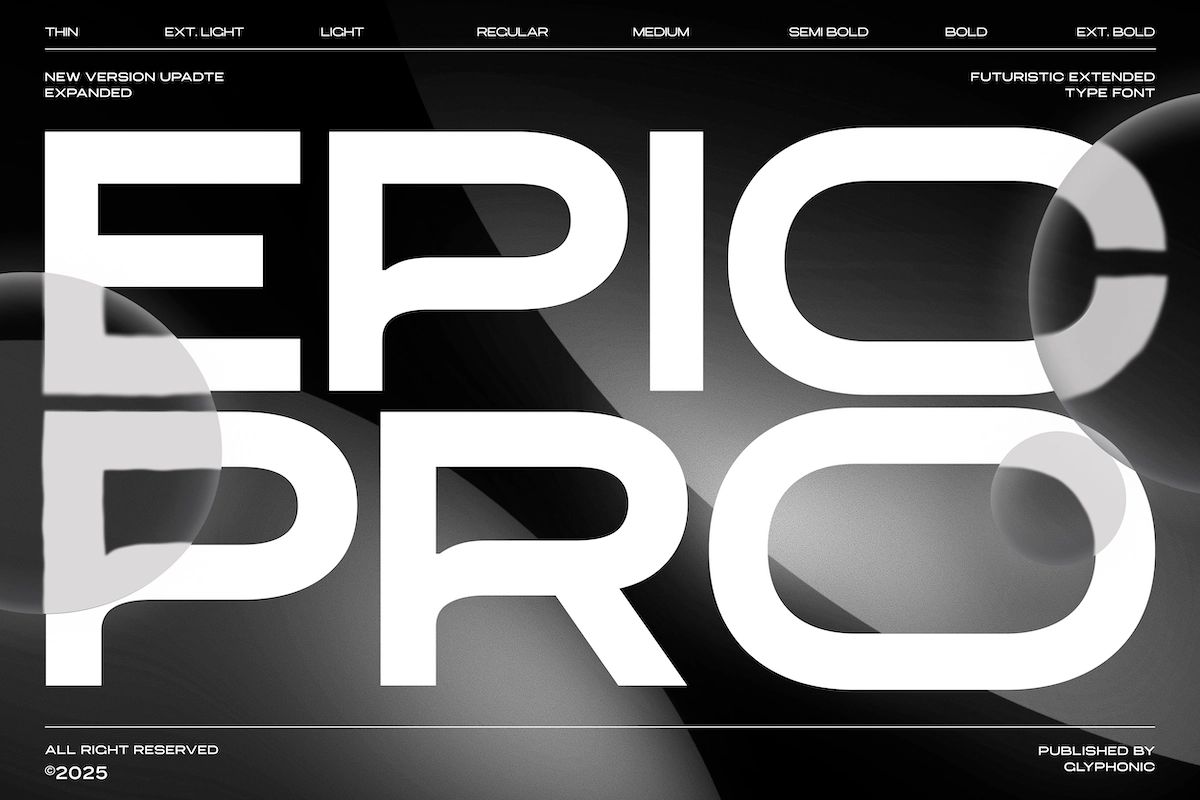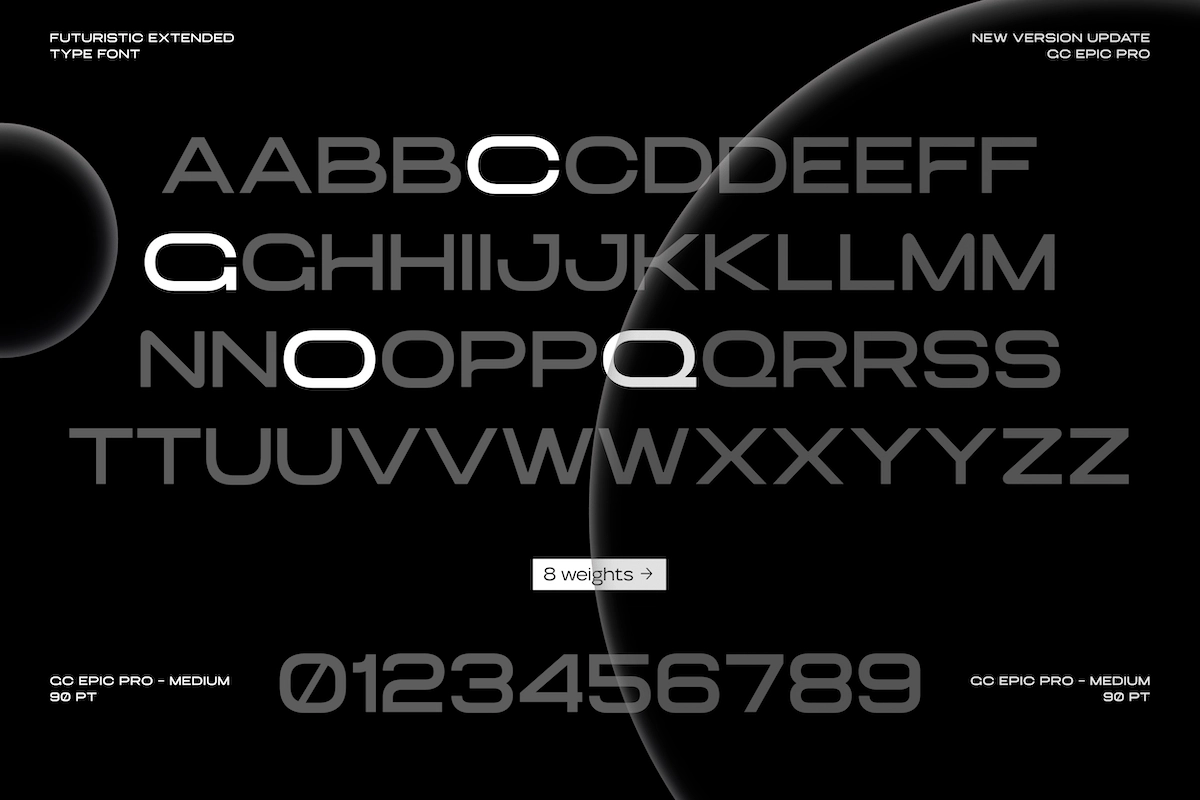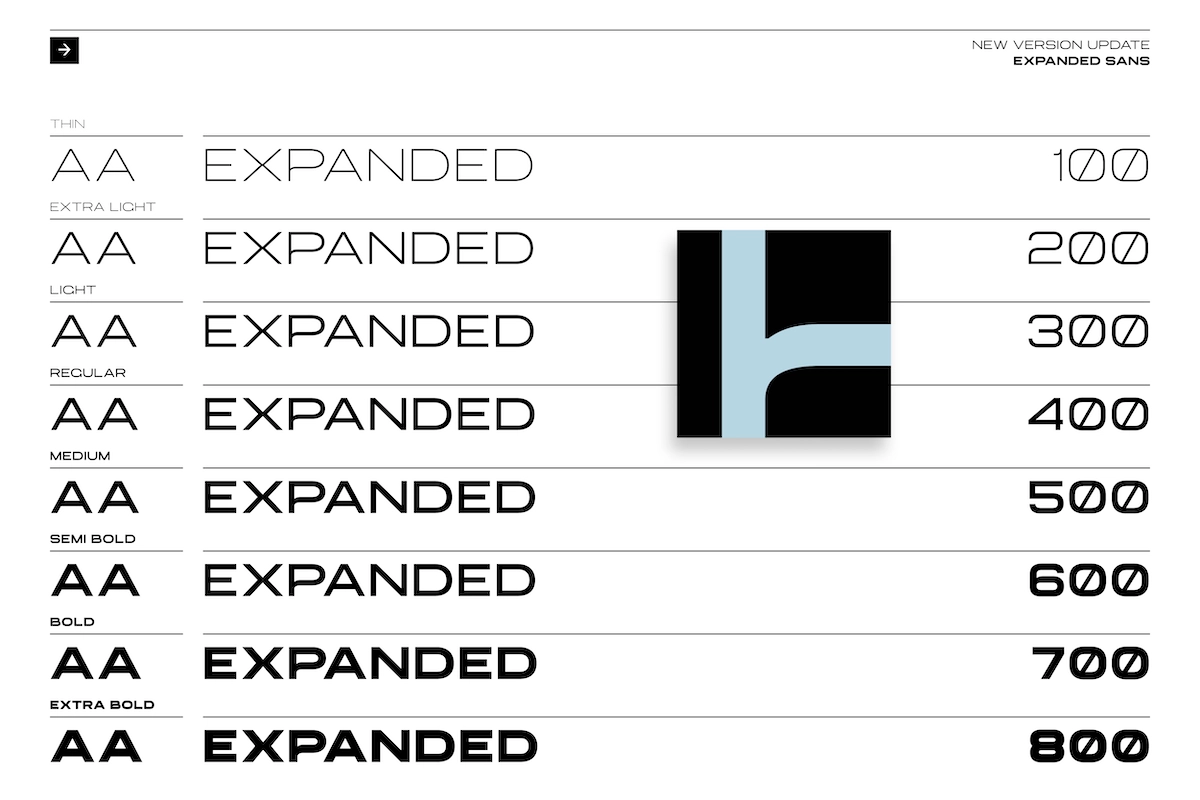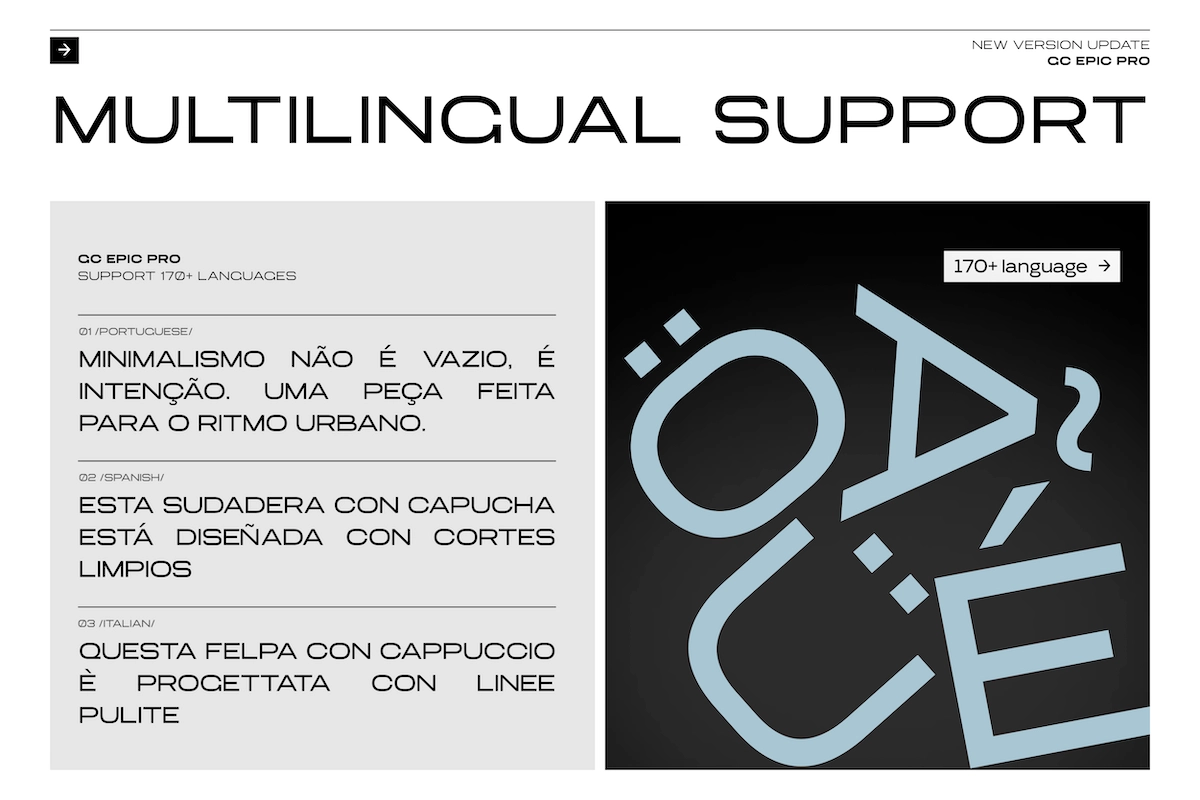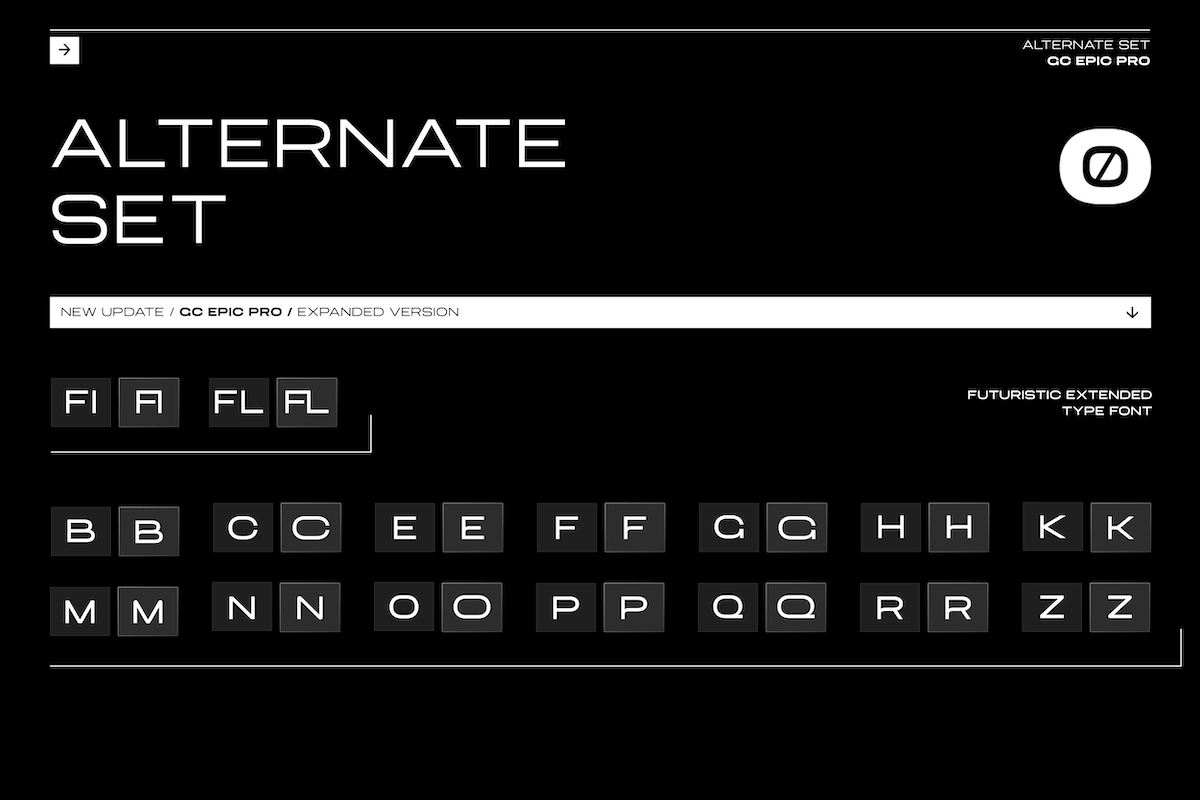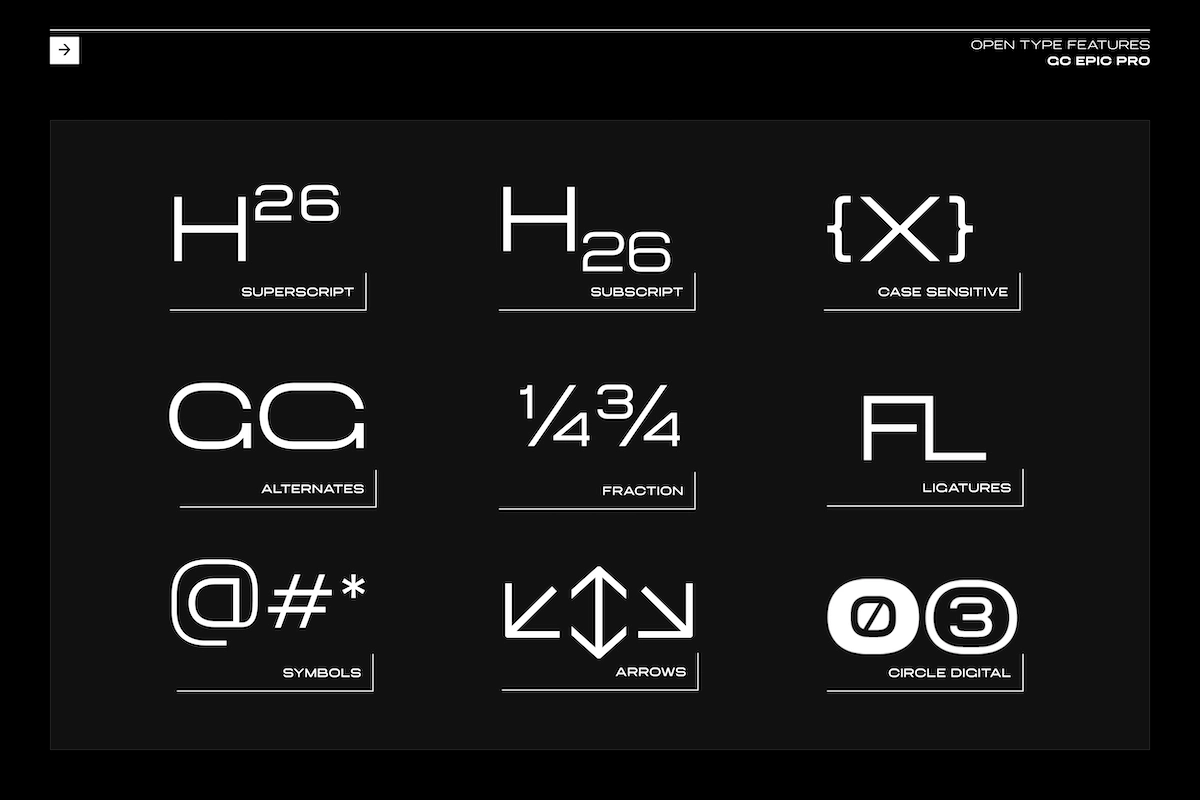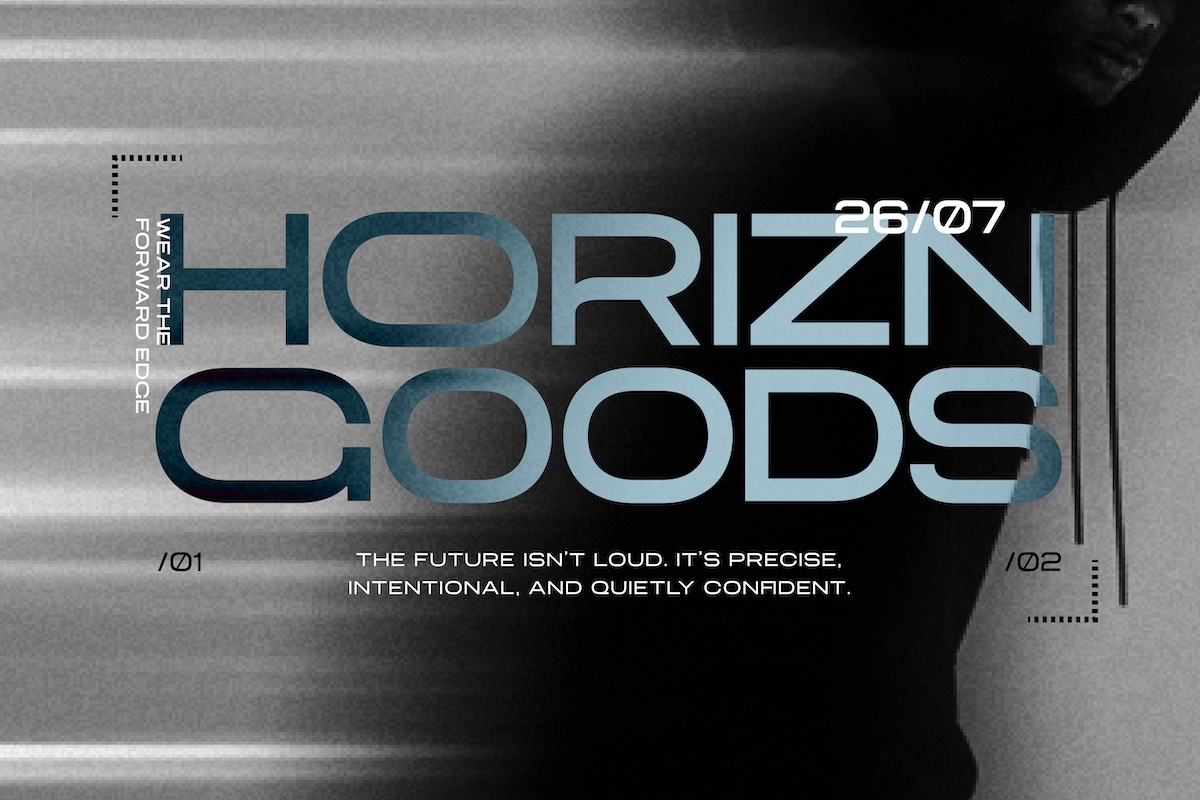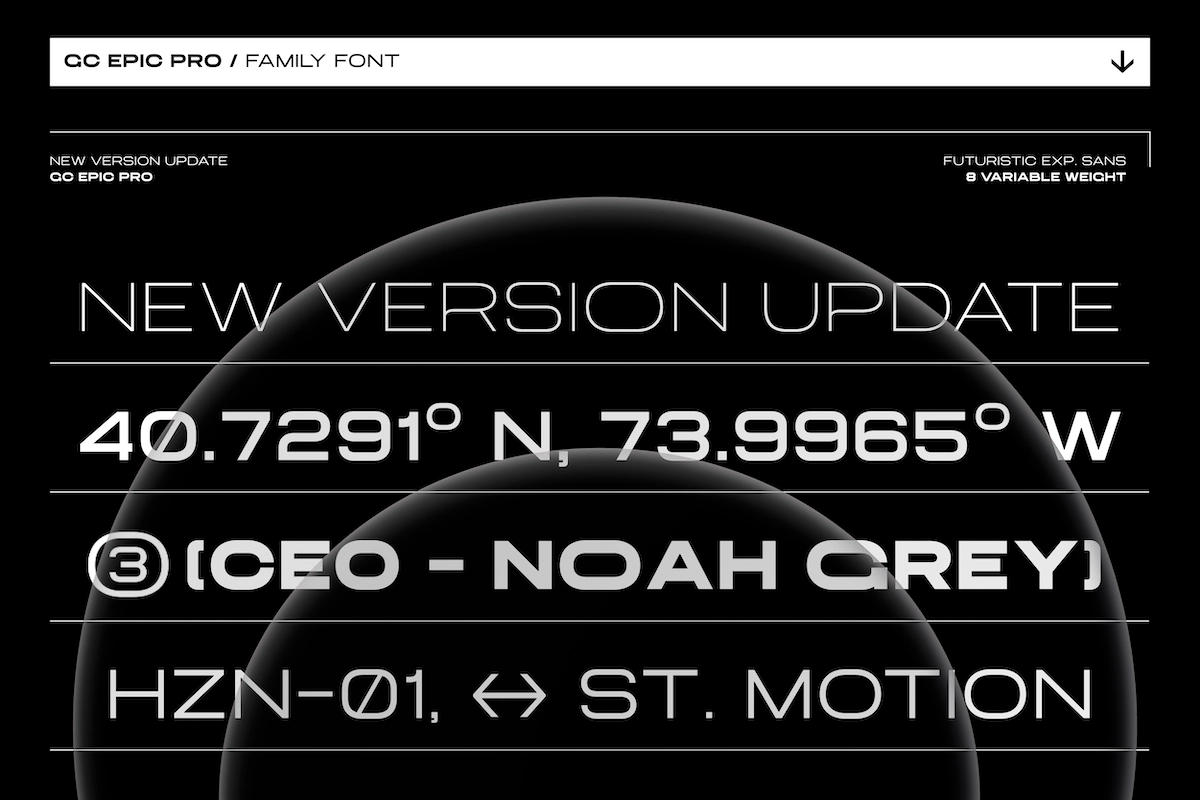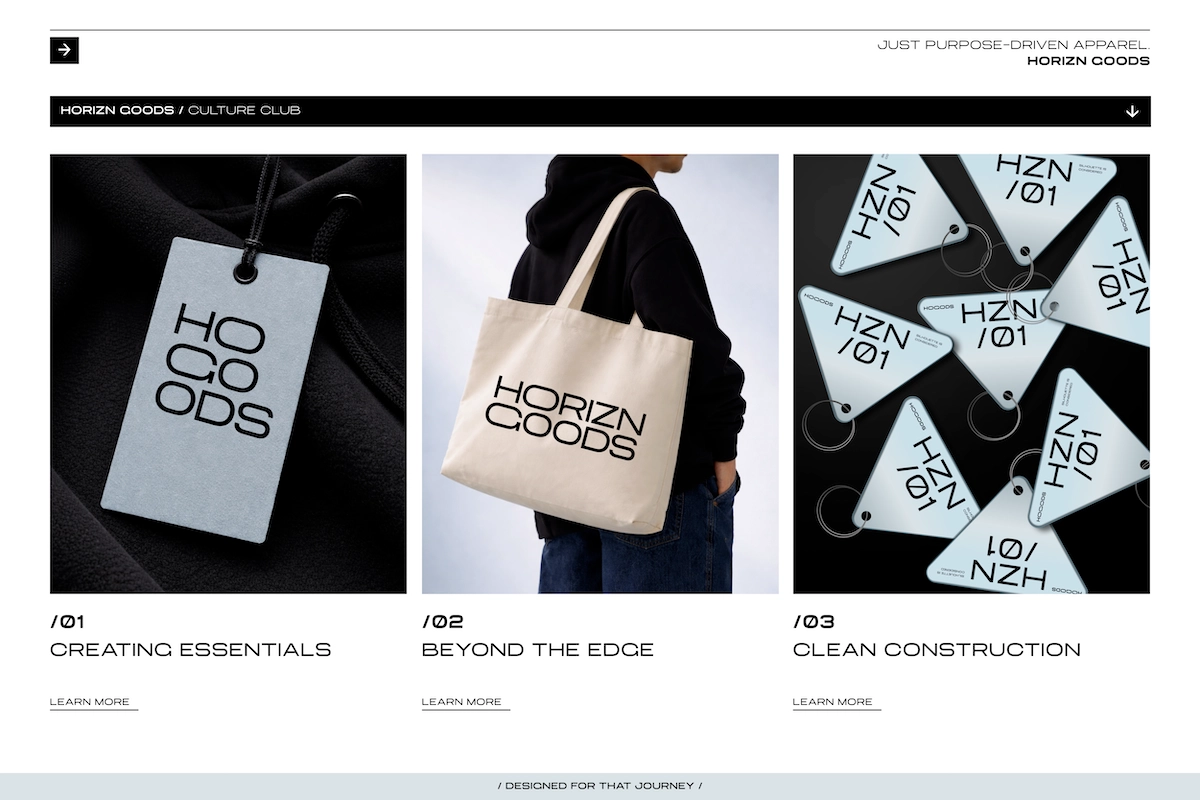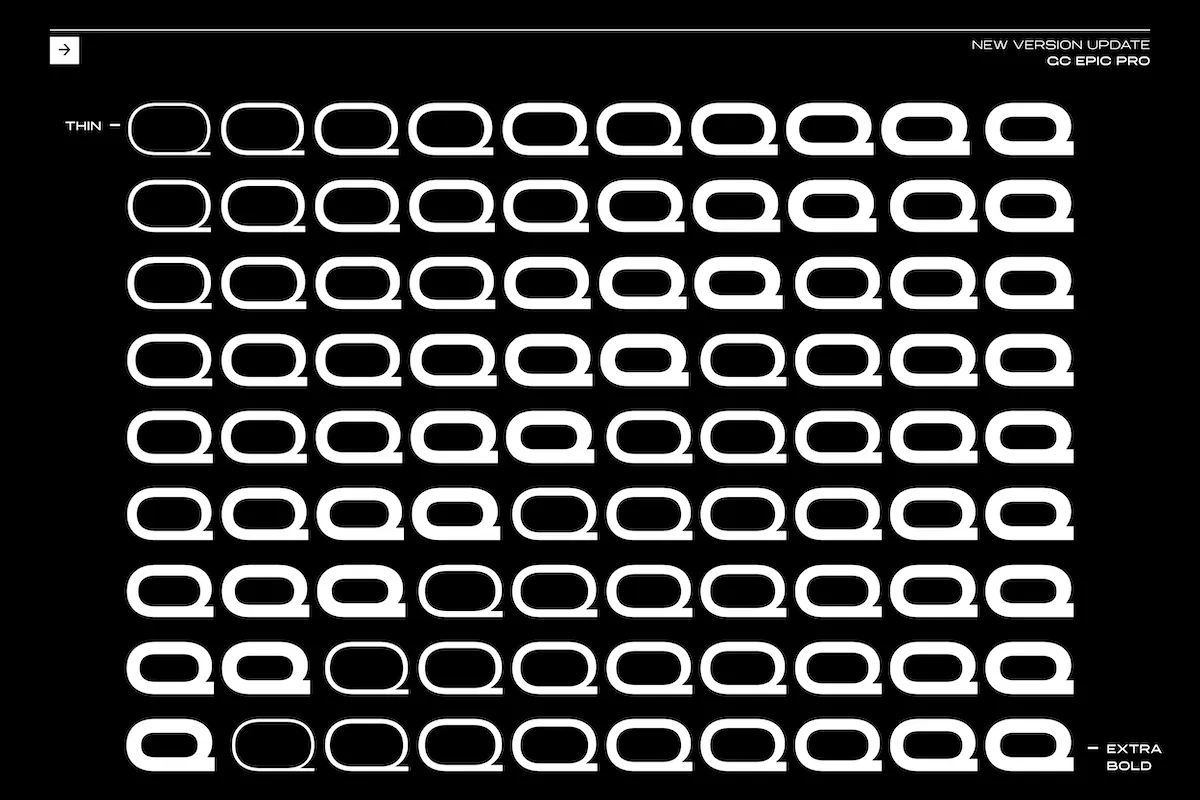
GC Epic Pro Vol.II Sci-fi Futuristic Font
GC Epic Pro Vol.II Sci-fi Futuristic Font continues the evolution of the original Epic Pro typeface with a bold extended sans serif design refined for modern and sci-fi inspired projects. This updated version delivers a cleaner geometric structure, balanced proportions, and smooth weight transitions for consistent, high-quality typography.
Ideal for branding, posters, headlines, interfaces, and editorial layouts, GC Epic Pro Vol.II combines sleek aesthetics with technical precision. Its wide letterforms and futuristic shapes give every design a confident, forward-looking presence—perfect for projects that demand both style and clarity.
A versatile and refined type system, GC Epic Pro Vol.II is built for designers who want a powerful, modern, and future-ready sans serif font.
- Expanded Typeface Family
- Refined & Enhanced Glyphs
- Improved Character Consistency
- Optimized for Display & Digital Use